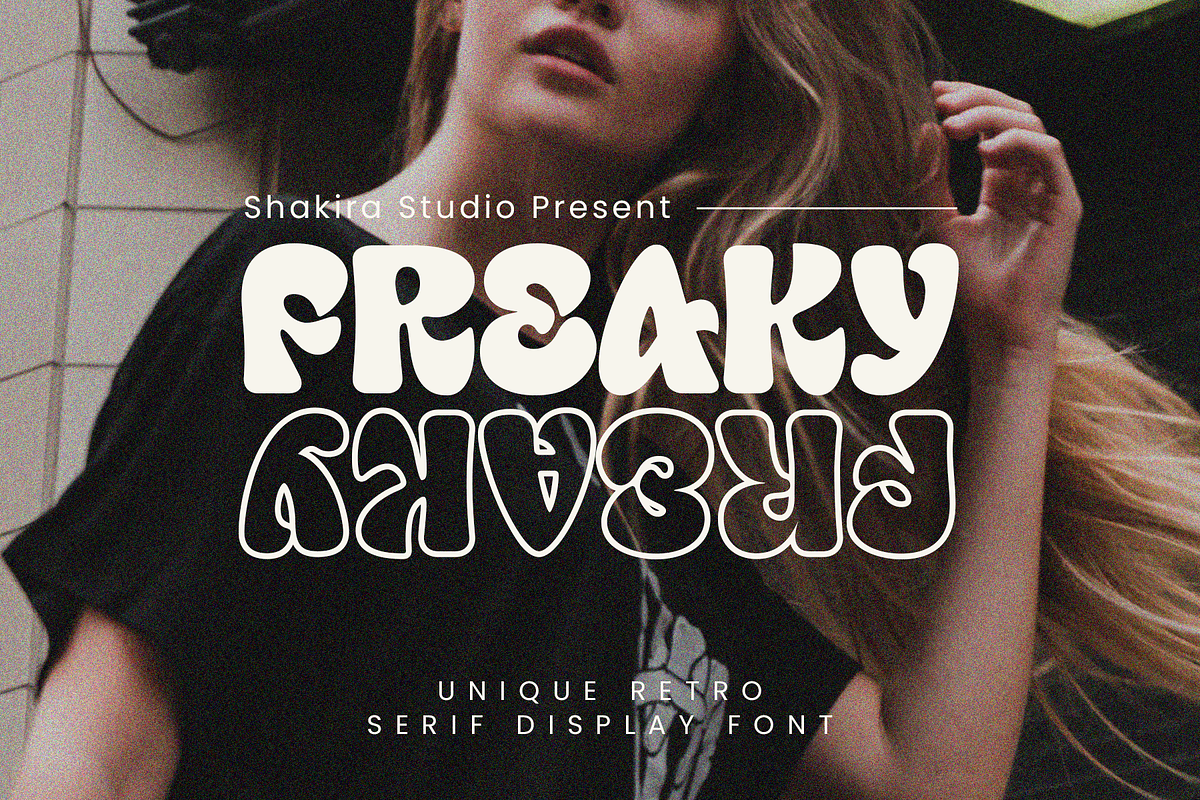
Freaky – Serif Display Font Free Download is a bold and eccentric typeface that fuses classic serif elegance with quirky, unconventional flair. Featuring exaggerated curves, playful proportions, and an artistic edge, this font is perfect for eye-catching posters, album covers, fashion branding, editorial headlines, and creative packaging.
Designed to make a statement, Freaky – Serif Display Font Free Download adds personality and attitude to any design. Whether you're going for something bold and experimental or high-fashion and edgy, this font brings a distinctive twist to traditional serif styles.